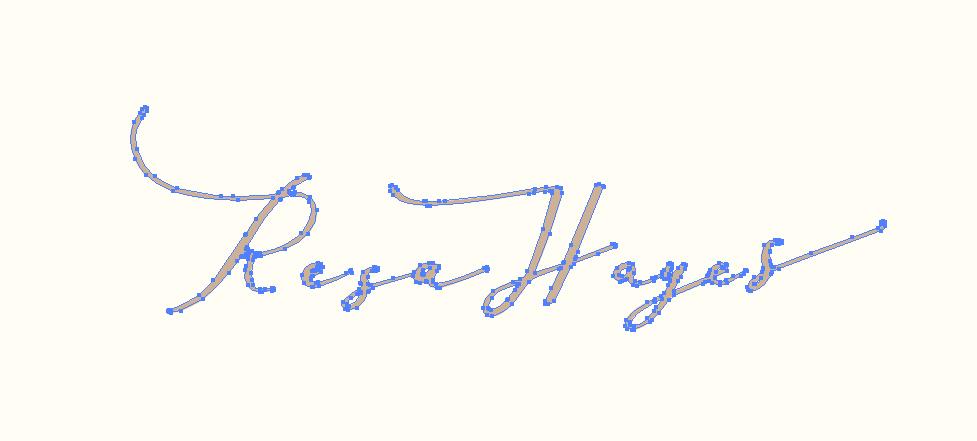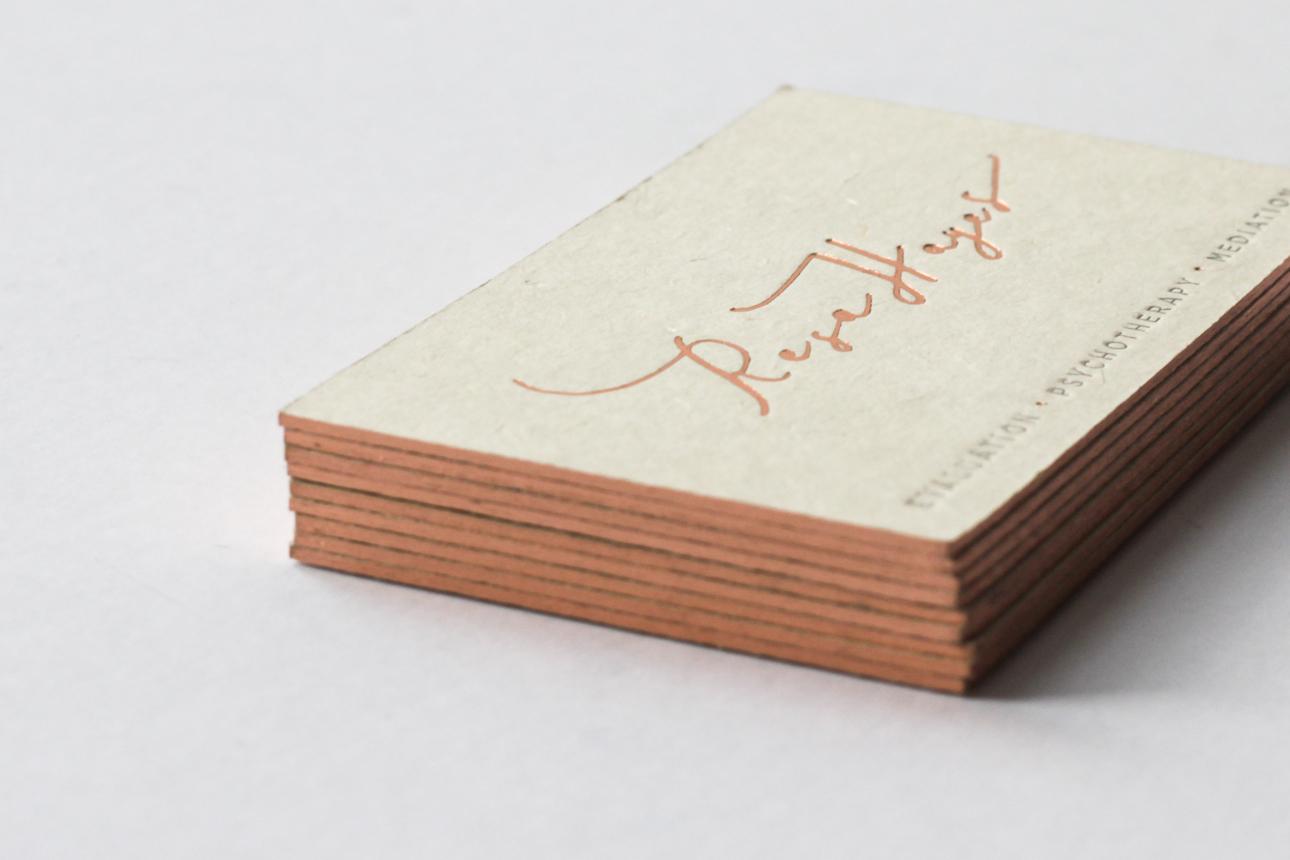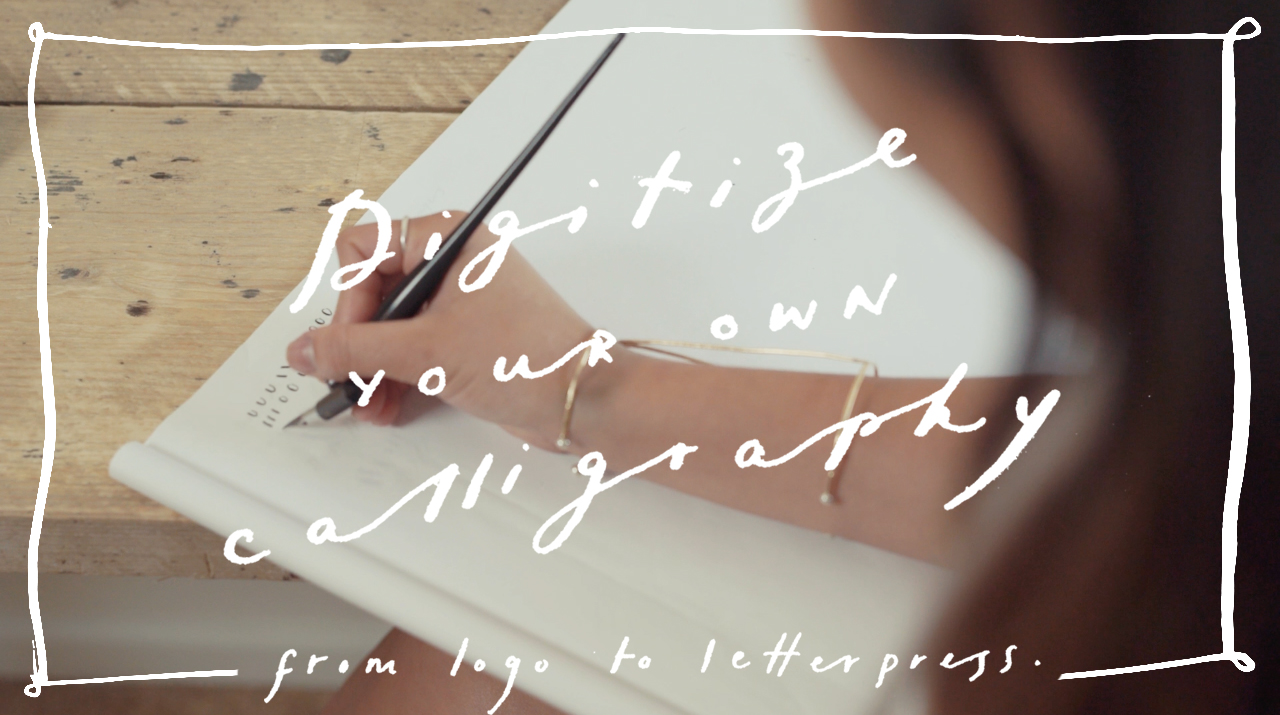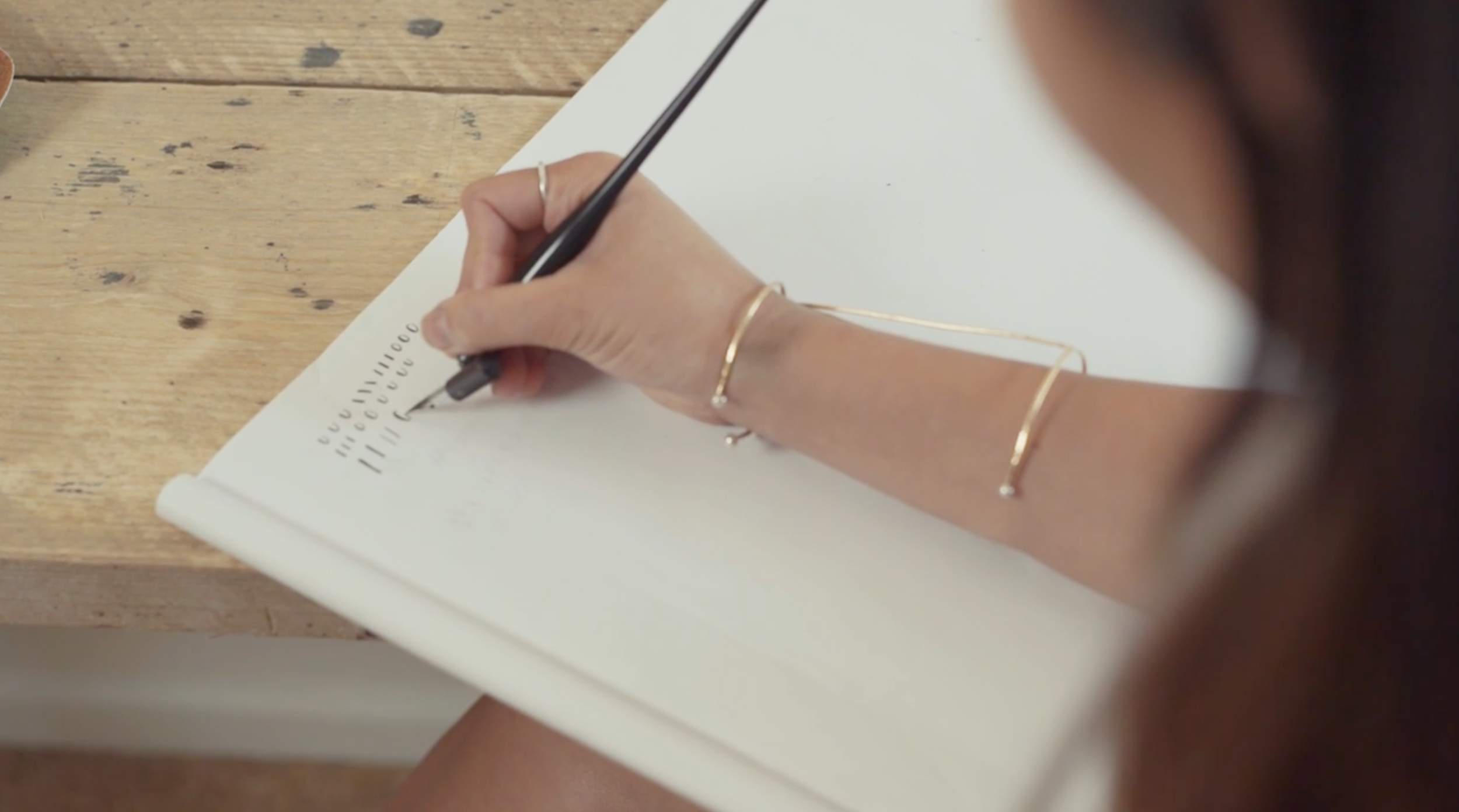
Belinda Love Lee Digitize Your Own Calligraphy Class (Skillshare)
Belinda Love Lee Digitize Your Own Calligraphy Class (Skillshare) - Lettering TutorialBelinda Love Lee, one of Lettering Tutorials 'Lettering Legends' has just launched her first Skillshare class, 'Digitize Your Own Calligraphy: From Logo to Letterpress'. If you've ever looked at Belinda's portfolio you'll see a lot of her work uses a calligraphic style, and her new class focuses on calligraphy. Along with calligraphy the class also explores digitisation, and taking your work to letterpress.
I've watched all of the class videos as I'm a big fan of Belinda's work. It's very interesting to see what her working process is like. I also wanted to be able to give you a good idea of what you can expect to learn from Belinda's class.
Tools
The class looks into calligraphy materials and tools, and doesn't overwhelm you with a great long list of equipment to use. Belinda keeps things simple by just talking about two different types of calligraphy pen. She explains their differences, and mentions one calligraphy nib. Like with learning any type of lettering, it is important to explore different tools and not just limit yourself to one. That way you can find the one that works best for you. It is always very helpful to know of a starting tool though, then expand from there.
Practice
Belinda covers practice, again keeping things simple by demonstrating a couple of different letters to repeat, along with some different strokes of the pen to repeat too. This is incredibly similar to the techniques I wrote about recently in 'Brush Lettering For Beginners Part Two: Techniques'. So if you'd like to know a little bit more about practice technique, feel free to have a look at the brush lettering article.
Digitisation
The digitisation part of the class feels very smooth. Belinda walks you through how she moves her work from paper to her computer, techniques for getting lettering to look crisp, and then moves onto using Illustrator. I've worked my way through a couple of lettering courses that include digitisation, and I didn't think I'd pick up anything new. I was wrong! I picked up a couple of new tips that I can apply to any kind of lettering digitisation.
Letterpress
Towards the end of the class Belinda discusses taking work to print, and primarily focuses on letterpress print. You can really see her passion about letterpress products shine through in this part of the class. It is very clear that she talks about letterpress because it's something she's interested in, not just because 'it's what designers should know about'.
The class doesn't cover every single detail you'd probably need to know about calligraphy, but it does keep things very simple, clear and easy to understand. It provides a really great starting point for learning calligraphy, which you can then expand upon as you build more confidence in this skill.